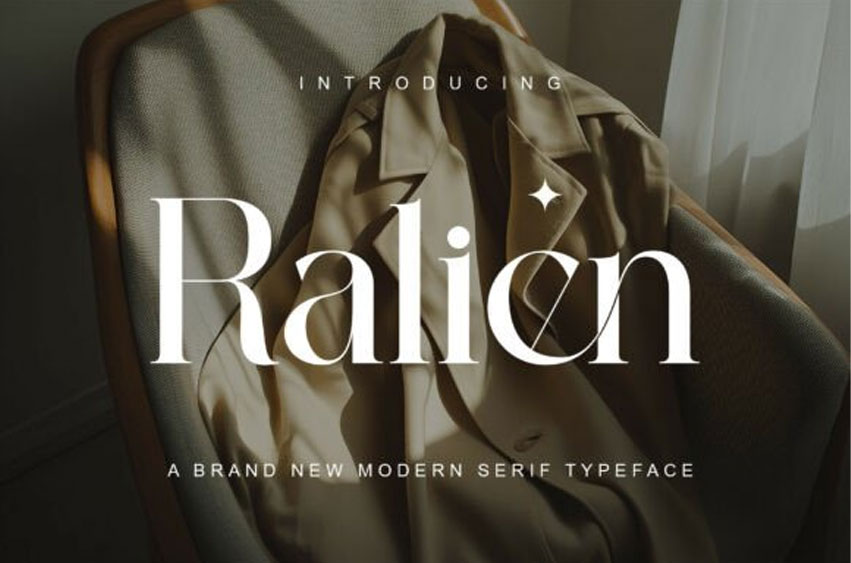
Ralien Font is an elegant ligature serif modern font that evokes the beauty of fresh blooms and timeless elegance.
This stunning typeface features beautifully balanced thick and thin strokes, maintaining high legibility while exuding modern elegance. The unique stylistic alternates and ligatures within this font offer designers a vast array of unique typography options, especially the striking diagonal cut on the lowercase a and e that serves as its signature glyph. Its clean, geometric foundation ensures it’s perfect for high-end fashion branding, editorial layouts, wedding invitations, and stylish product packaging, making it a versatile display typeface with a premium feel.
With its bold yet refined ligatures, Ralien stands out as a sophisticated and feminine typeface. Perfect for upscale designs, whether for florals, fashion, or high-end branding, Ralien pairs the charm of classic serif styles with a modern twist. Every letter feels intentional, with a soft and graceful presence that elevates any project it touches.
Bring a touch of refinement and natural grace to your work with Ralien. Let this font breathe elegance into your designs, and watch them flourish with style and character.